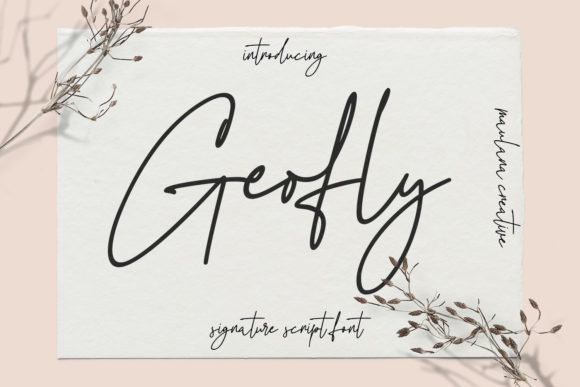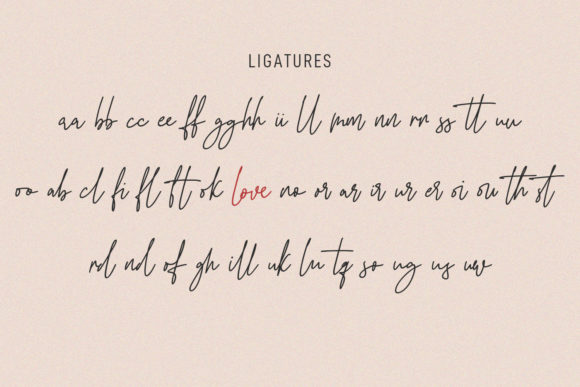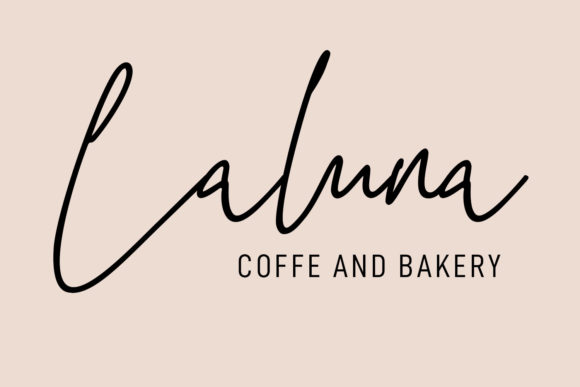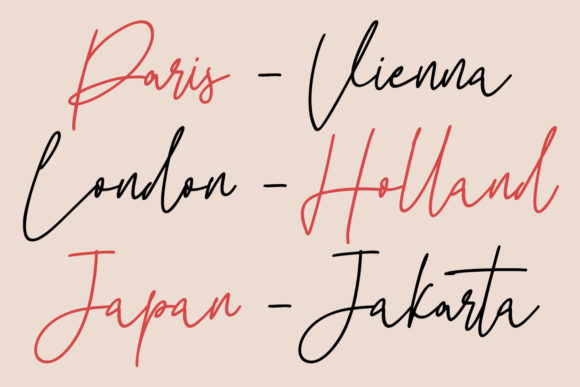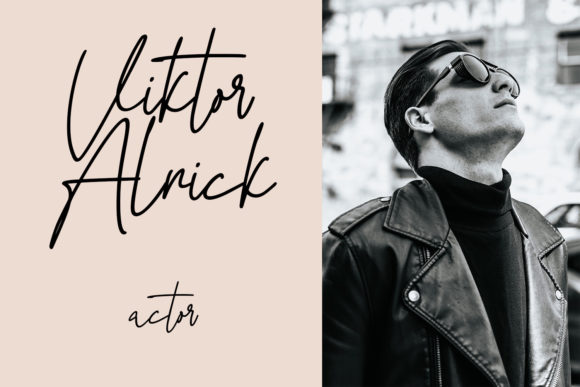
About Geofly Font
Geofly is a casually elegant handwritten font, meticulously crafted to capture hearts and become a beloved choice. It seamlessly blends classic calligraphic influences with a modern and refreshing feel. Immerse yourself in its charm and elevate your projects to new heights with this versatile and delightful typeface.
The relaxed and easygoing nature of Geofly makes it an ideal companion for a variety of design endeavors. Its inherent sophistication, coupled with a contemporary twist, allows it to adapt effortlessly to diverse themes and styles. Whether you’re working on branding, invitations, or social media graphics, Geofly adds a touch of class and freshness to your creative expressions.
What sets Geofly apart is its ability to maintain a timeless calligraphic essence while radiating a modern aura. The careful design of each stroke ensures a harmonious balance between tradition and innovation. The result is a font that feels both familiar and exciting, making it a standout choice for those seeking a typeface that stands out with subtlety.
Geofly invites you to fall in love with its graceful curves and effortlessly incorporate them into your projects. Whether you’re looking to evoke a sense of refinement or infuse a contemporary vibe, this font adapts seamlessly to your creative vision. It’s designed to bring a touch of sophistication to your designs, allowing you to express your ideas with a touch of timeless elegance.
In summary, Geofly is more than just a font; it’s a design companion that effortlessly combines relaxed elegance with contemporary flair. Embrace its charm, and let it accompany you as you elevate your projects to new levels of visual appeal and sophistication.